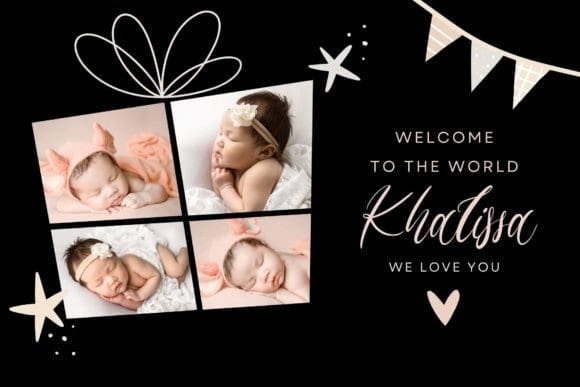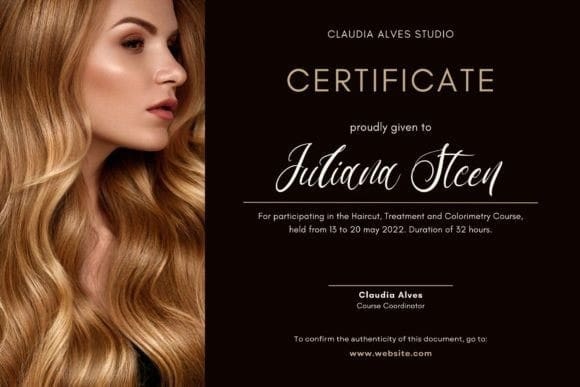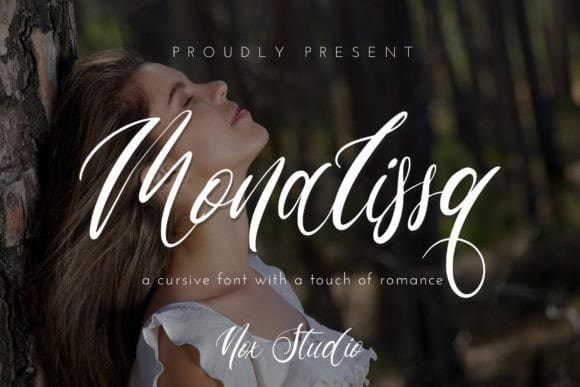
Monalissa Font
Monalissa Font, a deeply enchanting handwritten typeface embodying pure romance. A perfect fit for diverse projects, this font instantly embellishes your logo, branding, and uplifting quotes with its exceptional and everlasting allure. The enchantment of Monalissa lies in its timeless charm that distinguishes your designs, giving them a touch of grace and sophistication.